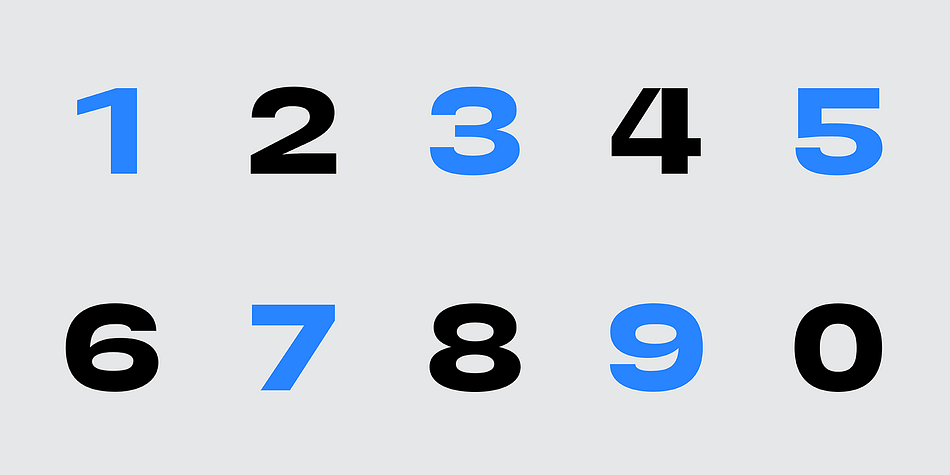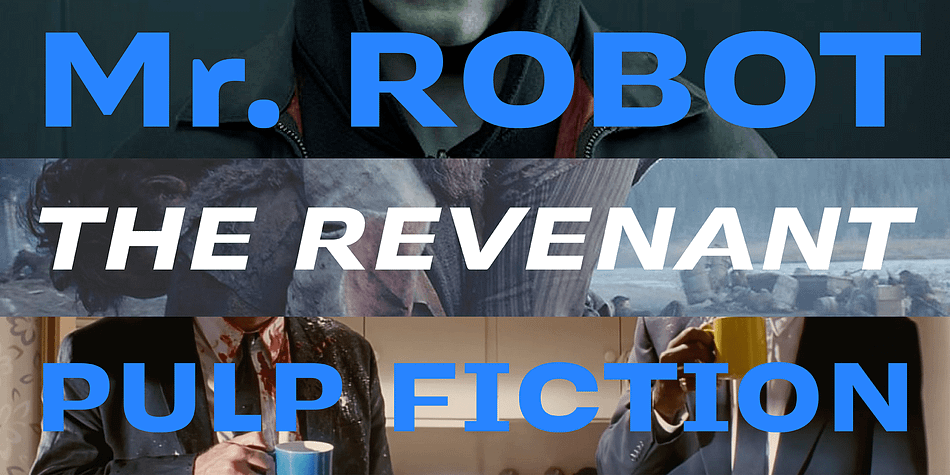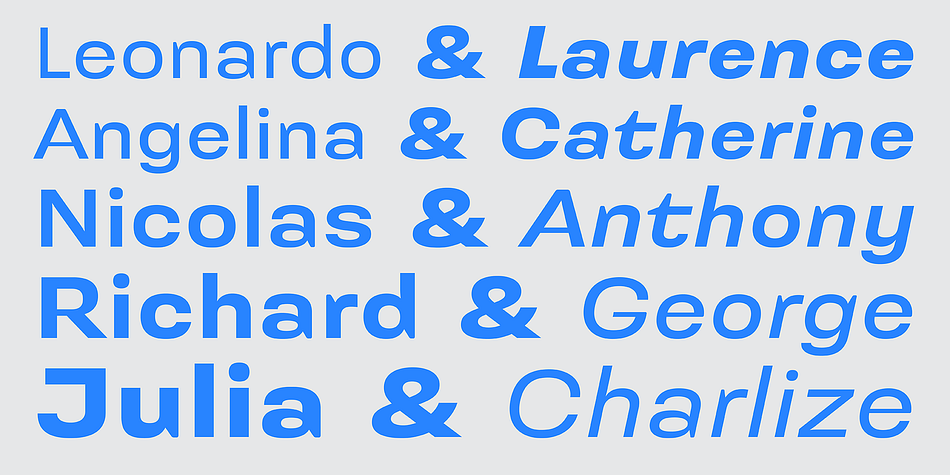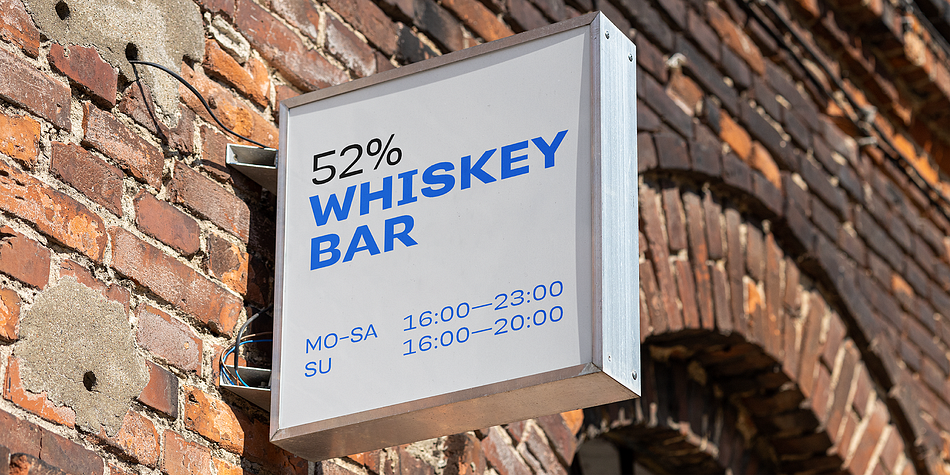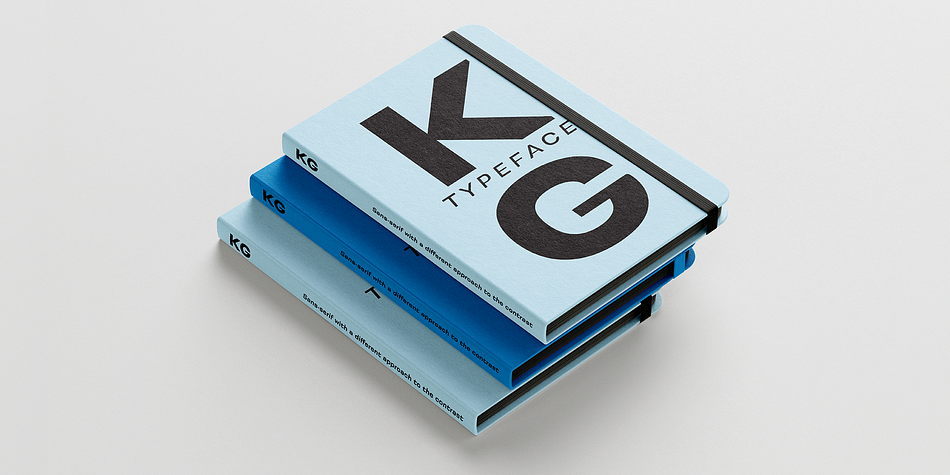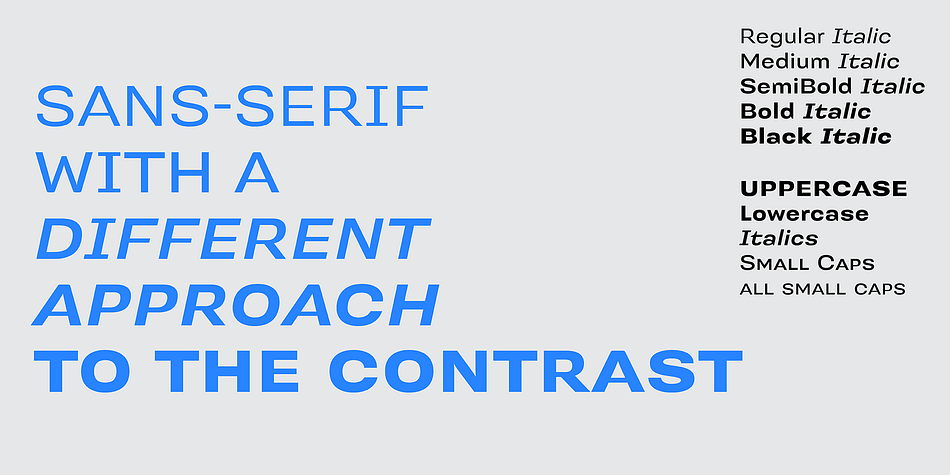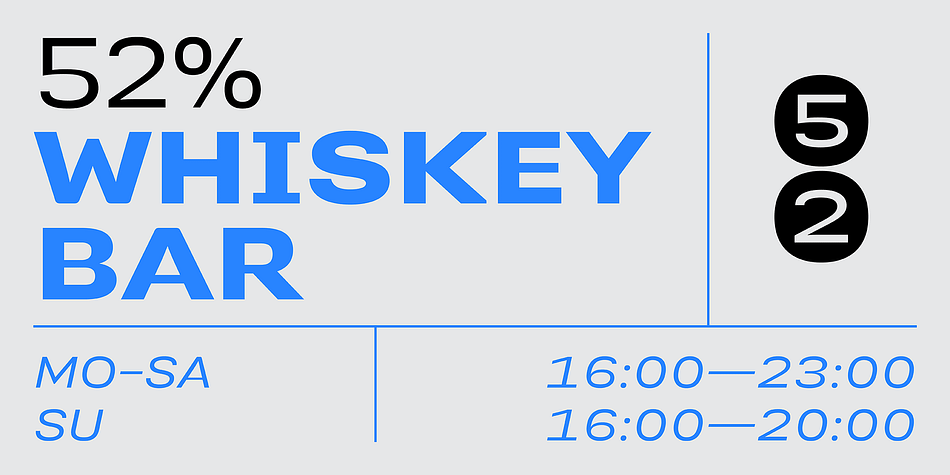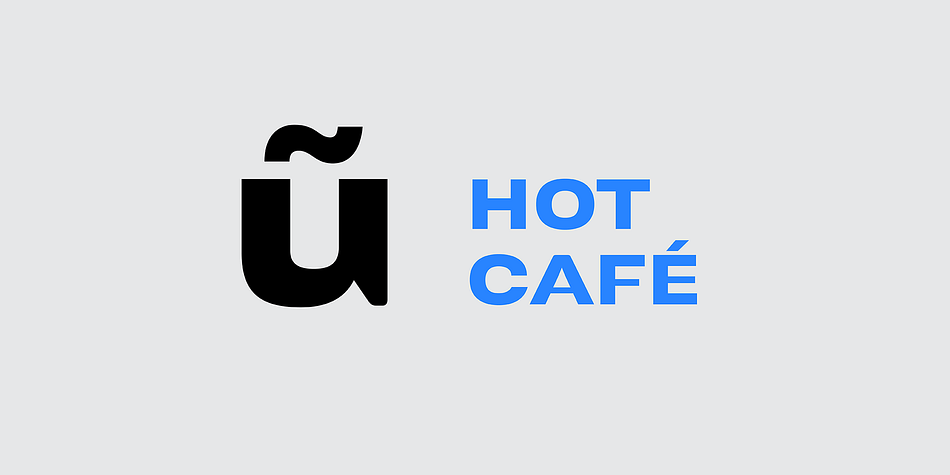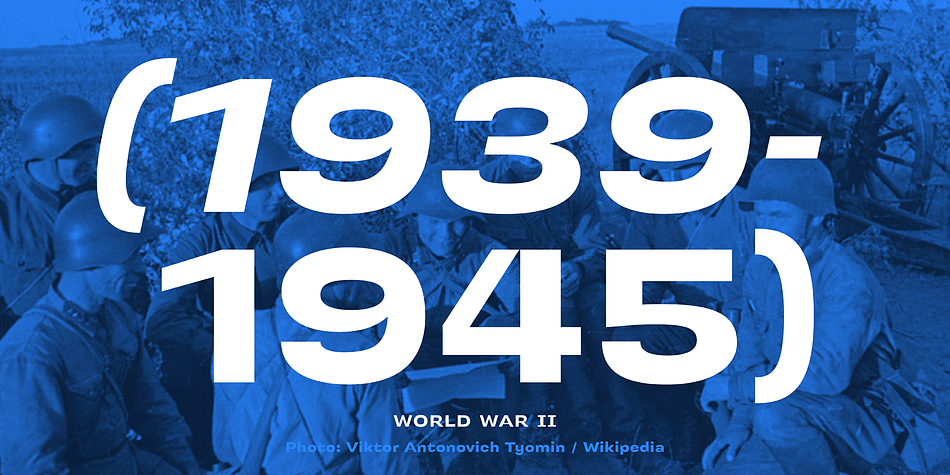
Kontrast Grotesk
Kontrast Grotesk is a sans serif font family. This typeface has ten styles and was published by DizajnDesign.
Kontrast Grotesk represents a contrast in type design based on a different principle. It was inspired by W. A. Dwiggins and his experiments with the stroke variations. Contrast in this typeface is created not only with the influence of the writing tool (the thickness of horizontal strokes in relation to vertical), but by setting the primary and secondary construction strokes of the characters (e.g. glyph “E”).
The grotesque types are usually with no or minimal contrast. Having the contrast has created a new and original look of this typeface without compromising the legibility. The fonts are designed for fluent reading on the screen. A little wider proportions are specially welcome with no need for saving a space as it is in printed media.
Kontrast Grotesk family consists of five weights, with italics, small caps and italic small caps. Fonts contains a range of opentype features.